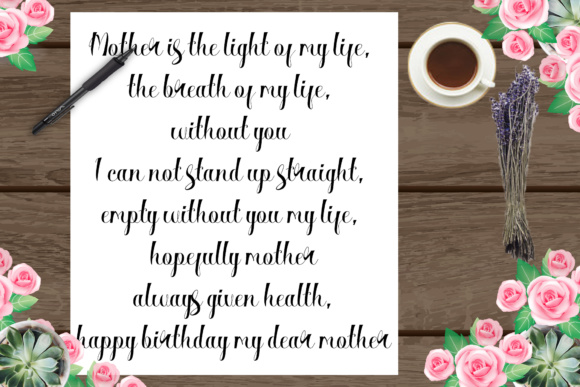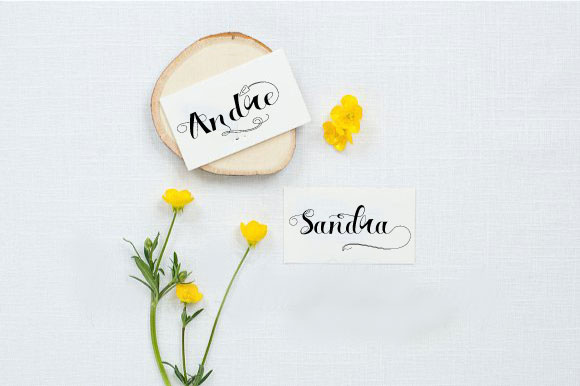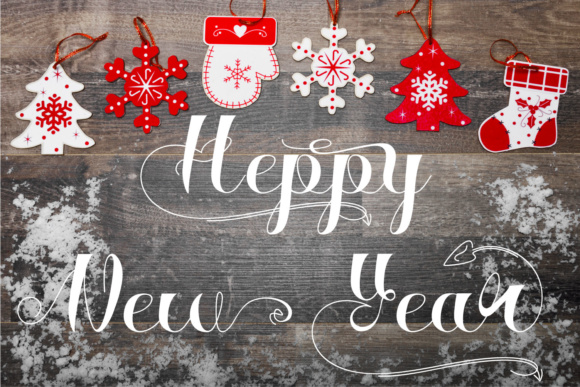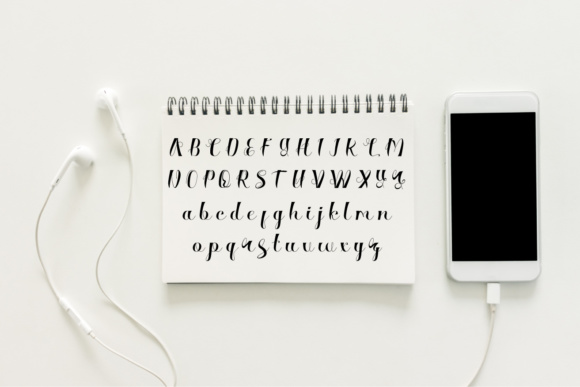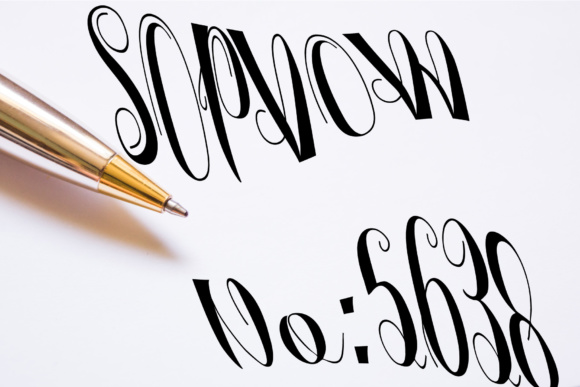
Silvagia Font
About Silvagia Font
Silvagia is a beautiful, handwritten font that will give your designs a natural and stylish appeal. This font comes with tons of alternates, so your designs will look stunningly unique.